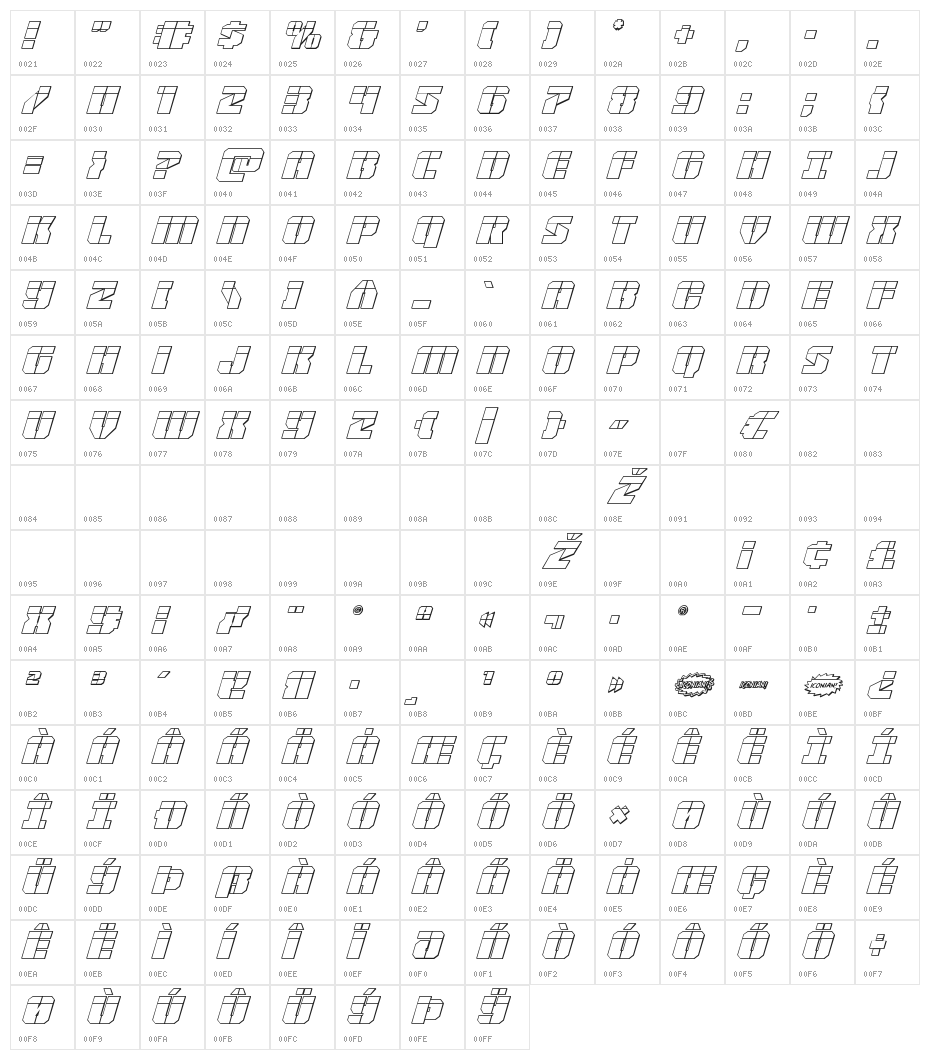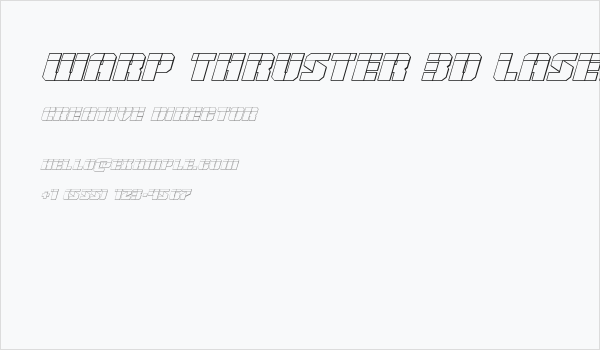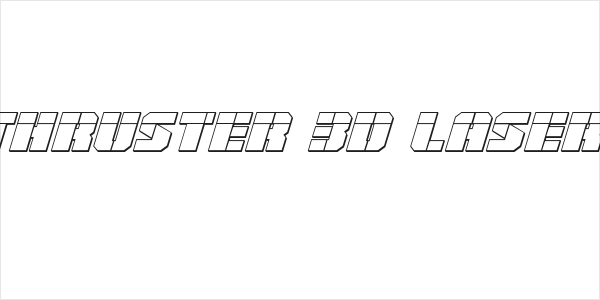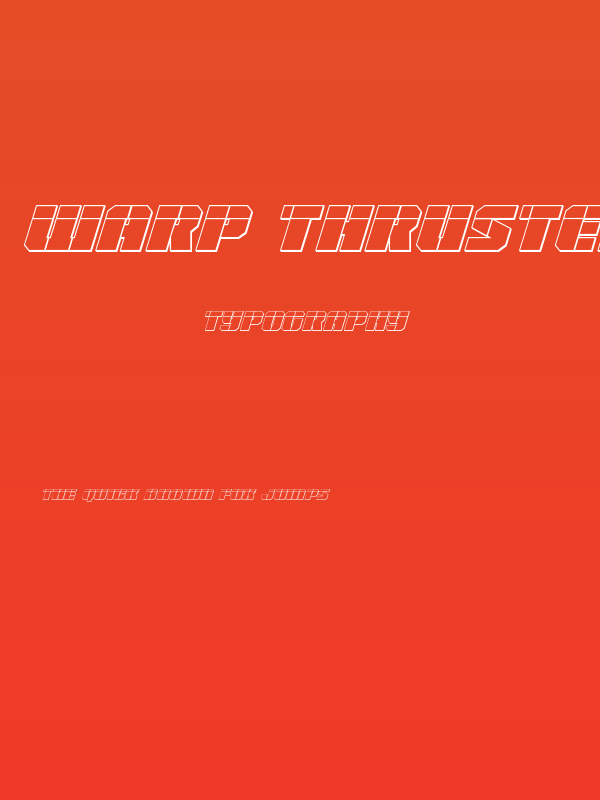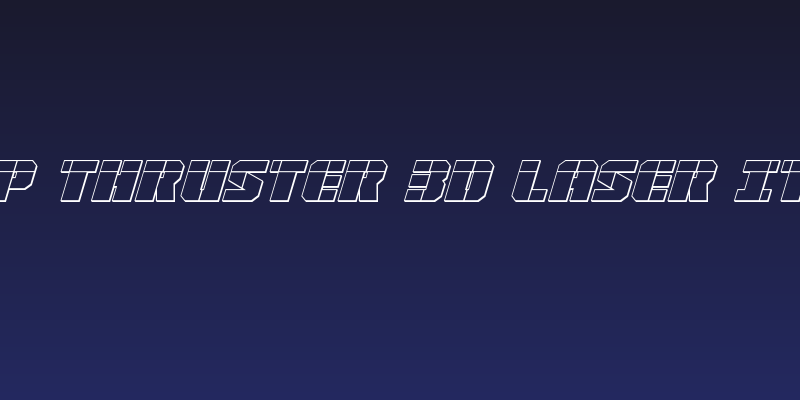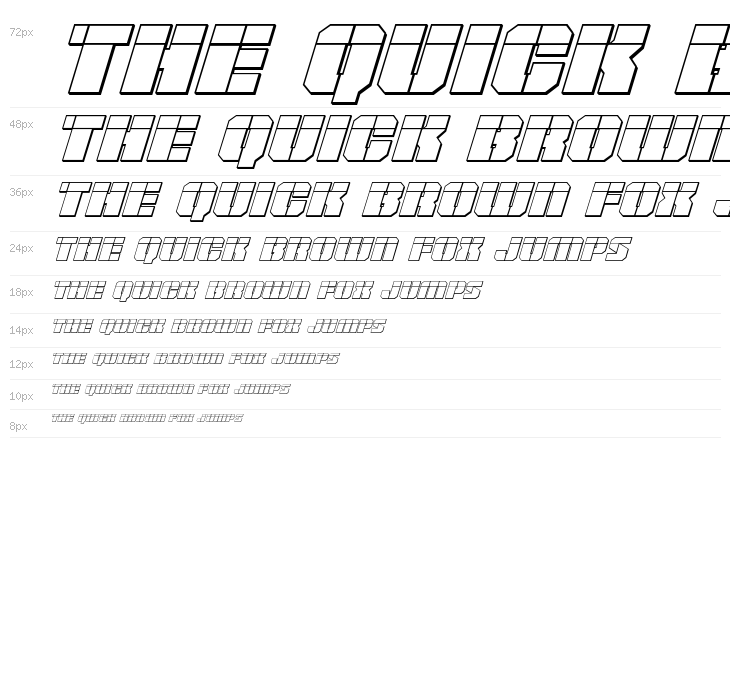
Warp Thruster 3D Laser Italic Font
Warp Thruster 3D Laser Italic Description
This font features a futuristic and dynamic 3D design with a laser-cut appearance. The characters are outlined with a bold, angular style that gives a sense of movement and speed. Each letter and number is crafted with precision, creating a cohesive and striking visual impact. The italic slant enhances the sense of forward motion, making it ideal for projects that require a modern and energetic look. The font's unique structure is both eye-catching and versatile, suitable for a variety of creative applications.
| Proposed Projects | Ideal for sci-fi themed designs, video game titles, tech branding, and futuristic posters. |